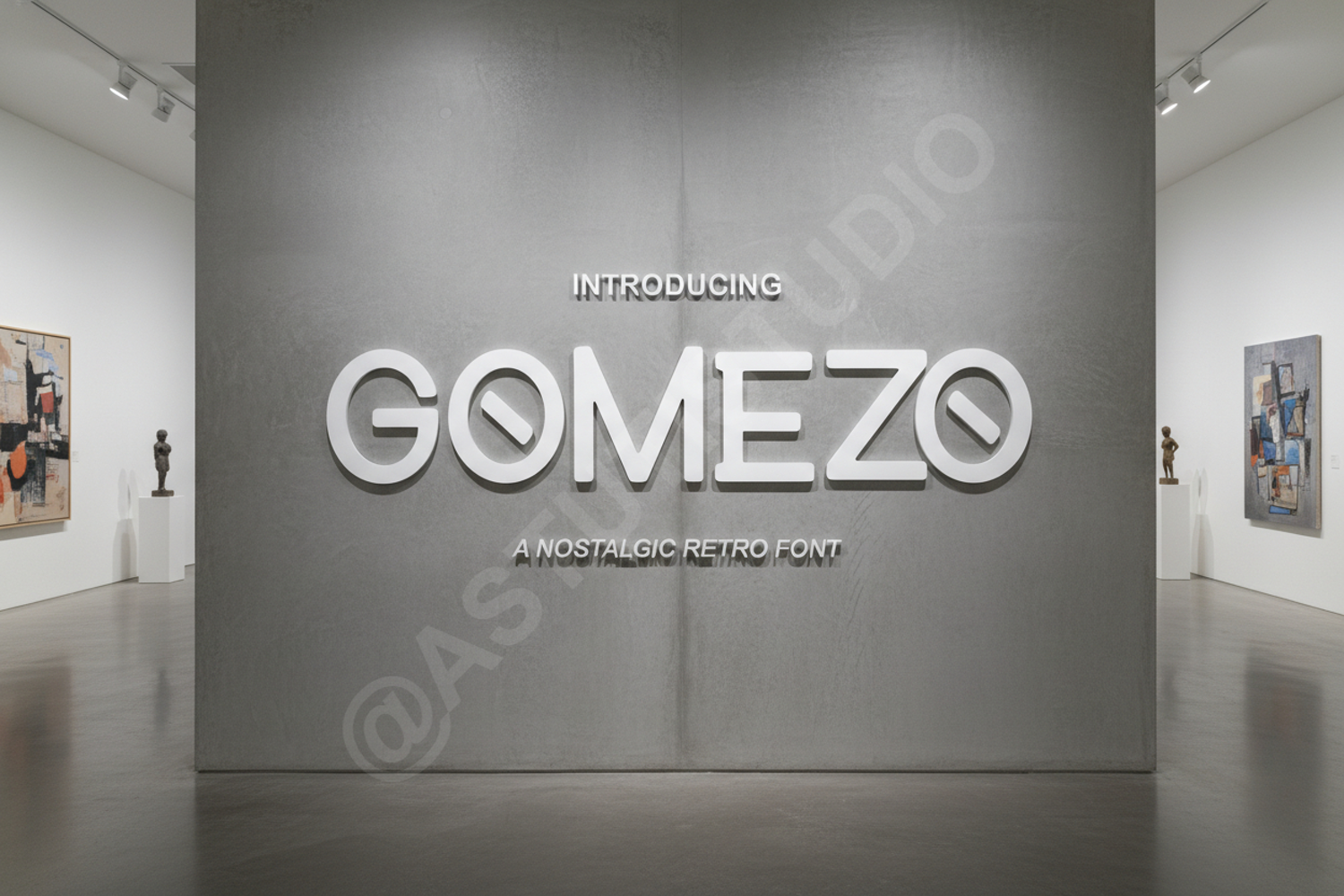
Gomezo - Bold Modern Geometric Sans
Gomezo
Elevate your creative projects with Gomezo, a premium modern geometric sans-serif designed for maximum impact. Gomezo balances clean, architectural lines with a bold presence, making it a versatile powerhouse for any designer's toolkit. Whether you are aiming for a minimalist tech aesthetic or a high-energy display, this font delivers professional results with every character.
- Professional Branding and Identity Systems
- High-Impact Logo Design
- Editorial Headlines and Magazine Layouts
- Social Media Graphics and Templates
- Modern Website Headers and UI Design
- Poster and Product Packaging Design